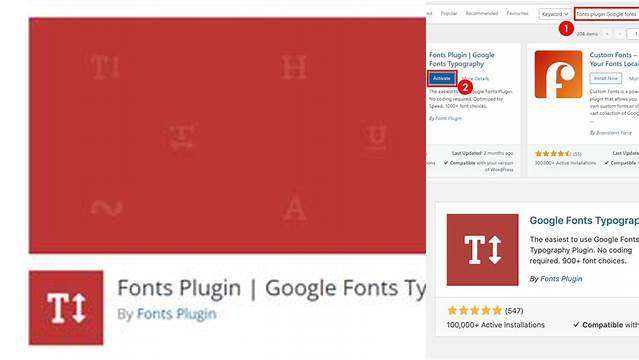
Fonts Plugin: Google Fonts & Typography Customization
Hey guys! Ever feel like your website's looking a little...blah? Like it's missing that special something? Chances are, it might be your fonts! Typography is super important for making your site not just readable, but also engaging and reflective of your brand. That's where font plugins, especially those rocking Google Fonts, come to the rescue! And, of course, the ability to do some serious customization is key. Let’s dive into how you can transform your website's look and feel with the right font plugin and a dash of creative typography customization.
What is a Font Plugin?
Okay, so what is a font plugin, anyway? Basically, it's a tool that lets you easily add and manage different fonts on your website, often without needing to mess with code. Think of it as a font library right at your fingertips! Most font plugins specialize in Google Fonts, but many provide other font options, too. Font plugins are very helpful when you are designing a site. Instead of doing it manually, just with a click of a button, you can implement it on the whole site. What's great is that with various font plugins available in WordPress, you won't have to do coding at all to implement it on your website. You don’t need to edit your theme's CSS files directly. This is a massive time-saver, especially if you're not a coding whiz. Plus, a good font plugin will let you preview fonts, combine them, and see how they look on your site before you commit to anything. Choosing a suitable font is essential as it can impact your website's overall look and feel, user experience, and brand identity. A well-chosen font makes your content more readable, engaging, and professional-looking. It can also enhance your website's accessibility and appeal to a wider audience. On the flip side, a poorly chosen font makes your content look unprofessional, difficult to read, and visually unappealing. So, to avoid these problems, it is better to consider different factors when choosing a font, such as the font's readability, consistency, accessibility, and overall look and feel.
Why Use Google Fonts?
Alright, why Google Fonts specifically? Well, for starters, they're free! And, there are tons of them – literally hundreds of different styles to choose from. Google Fonts are also optimized for the web, so they load quickly and look good on all devices. Google Fonts library is vast, offering a huge variety of font styles and weights. This gives designers the flexibility to choose fonts that perfectly match their brand and design aesthetics. Whether you need a classic serif font or a modern sans-serif font, Google Fonts has it all. The integration with Google Fonts will allow you to implement it on your site easily. They're constantly adding new fonts, so you'll always have fresh options. Plus, Google Fonts integrate seamlessly with most website platforms and design tools. What's not to love? This makes Google Fonts library an ideal choice for designers and developers who want to quickly add high-quality fonts to their websites without the hassle of manual installation. It's a win-win!
The Importance of Typography
Okay, let's get serious for a sec. Typography is way more than just picking a pretty font. It's about how your text looks, feels, and communicates. Good typography makes your content easy to read and understand, while bad typography can drive people away. Typography is the art and technique of arranging type to make written language legible, readable, and visually appealing. It involves selecting the right font, adjusting letter spacing, and ensuring the text is properly aligned. A well-designed typography creates a visual hierarchy that guides the reader's eye, emphasizes important information, and enhances the overall user experience. In essence, typography is about making the text look good and convey the right message effectively. Think about it: have you ever landed on a website with tiny, cramped text that's hard to read? You probably bounced pretty quickly, right? That's the power of typography in action (or, in that case, inaction!). Typography plays a crucial role in shaping the user's perception of a brand or website. It conveys the tone and personality of the brand, making it feel professional, modern, or playful. Effective typography can enhance brand recognition, create a consistent visual identity, and ultimately influence the user's decision-making process. Therefore, spending time on typography is crucial for businesses that want to create a positive and lasting impression on their target audience.
Finding the Right Font Plugin
So, you're convinced you need a font plugin. Great! But which one? There are tons of options out there. Look for plugins that are well-rated, regularly updated, and offer the features you need. Finding the right font plugin is the key to unlocking your website's true potential. With the right font plugin, you will be able to browse a vast selection of fonts, preview them on your website, and easily apply them to your content. But with so many font plugins available, it can be overwhelming to choose the right one. This is why you must do proper research and compare the features of different plugins to make an informed decision. Also, consider the user interface and ease of use of the plugin, as you want a plugin that is intuitive and easy to navigate. By taking the time to find the right font plugin, you can elevate your website's typography and enhance the overall user experience.
Key Features to Look for in a Font Plugin
When you're scouting for a font plugin, keep an eye out for these features: A wide selection of fonts. Easy preview options, like the ability to see how a font looks on your site before you apply it. Font pairing suggestions. Options for customizing font size, weight, color, and spacing. Compatibility with your theme and other plugins. And good customer support, just in case you get stuck. Key features is the main consideration for choosing the right font plugin. You want the font plugin that is flexible and offers a range of options for customization and integration. A good font plugin should also be user-friendly, with clear instructions and an intuitive interface. By considering these key features when selecting a font plugin, you can create a website that looks professional, engaging, and unique to your brand.
Customizing Your Typography
This is where the real fun begins! Most font plugins will give you options to customize things like font size, line height, letter spacing, and text color. Play around with these settings until you get the look you want. Customizing your typography is about making your content look its best. Customizing your typography allows you to adjust the font style, size, color, and spacing. It also helps you to create a consistent look and feel throughout your website. It's also an important step in creating a website that is accessible to all users, including those with visual impairments. By customizing your typography, you can enhance the user experience and ensure your content is easy to read and understand.
Font Pairing: A Quick Guide
Font pairing is the art of combining two or more fonts that look good together. A good rule of thumb is to pair a serif font (like Times New Roman) with a sans-serif font (like Arial or Helvetica). But don't be afraid to experiment! Font pairing is the key to creating a visually appealing website. Font pairing enhances the overall design and user experience. When font pairing, you want to choose fonts that complement each other and create a harmonious look. You also want to consider the readability of the fonts and ensure that they are easy to read. By mastering font pairing, you can create a website that looks professional and engaging.
Previewing Your Fonts
Before you commit to a font, always preview it on your site! Most font plugins will let you do this. See how it looks on different devices and in different browsers. Previewing your fonts is an essential step in the font selection process. Previewing your fonts allows you to see how the fonts will look on your website before you make any changes. It helps you ensure that the fonts are legible, visually appealing, and consistent with your brand's overall look and feel. With previewing fonts, you can avoid any surprises and make informed decisions about your website's typography. By previewing your fonts, you can save time and effort while creating a website that is both professional and engaging.
So there you have it! With the right font plugin and a little bit of creativity, you can totally transform your website's look and feel. Happy font-ing!